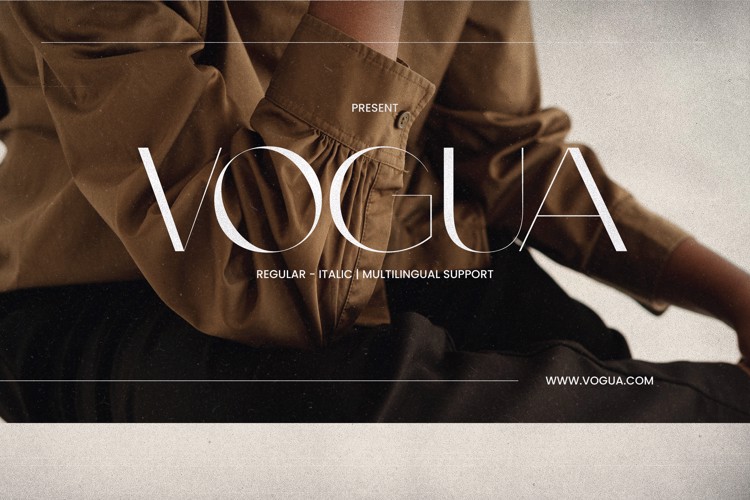
VOGUA Font
๐จ Font Name: Vogua by Minimalist Art Studio
๐จ Font Description: Vogua is a fashion-forward sans serif with multilingual supportโperfect for editorial branding, minimalist presentations, and modern packaging.
โ Complete Latin set + multilingual diacritics
โ Alternates, stylistic sets & ligatures
โ Numbers, small caps, and extended punctuation
โ Bonus italics and family styles